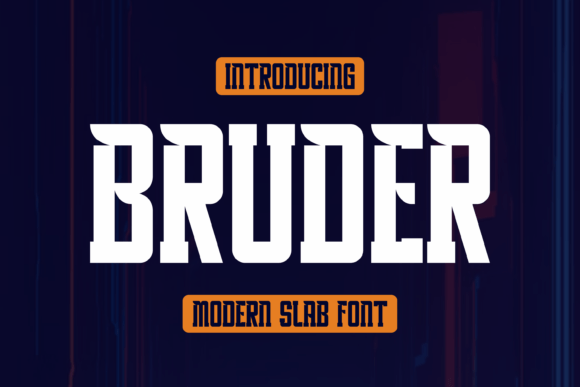
Introducing Bruder Font, the captivating slab serif font family that's sure to make your designs stand out. Its alluring curves and bold strokes evoke a sense of nostalgia, transporting you back to the golden age of vintage design. With its timeless elegance, Bruder Font is destined to become a cherished favorite in your creative arsenal.
Crafted by the talented lelevien, Bruder Font is a versatile font that effortlessly transitions from print to screen. Its unwavering charm shines through in branding, name cards, posters, logos, magazines, covers, banners, and t-shirts. Its presence commands attention in headers and large-scale artworks, leaving an indelible mark on your audience.
Embrace the Bruder Font experience and unlock a world of creative possibilities. Its meticulously designed characters, encompassing uppercase, lowercase, numbers, and punctuation, provide endless opportunities for self-expression. Whether you're a seasoned designer or just starting your creative journey, Bruder Font is your trusted companion, guiding you towards exceptional designs.
Delve into the world ofvintage typography and let the Bruder Font ignite your imagination. Its enchanting essence captures the essence of a bygone era, adding a touch of sophistication to your projects. Transform ordinary designs into extraordinary masterpieces with the timeless charm of Bruder Font.